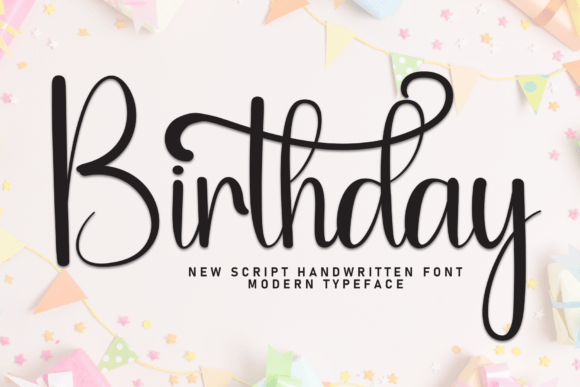
The Birth of a Delightful Font: A Designer’s Dream Come True
I’ll never forget the moment I stumbled upon the perfect font for a wedding invitation project. I was on a tight deadline, and my client was being super picky about the design. I had tried countless fonts, but none seemed to capture the warmth and playfulness she was looking for. That’s when I discovered Birthday Font – a delightful, approachable handwritten display font that exuded charm and friendliness. It was love at first sight! 💕
As a designer, I’m always on the lookout for fonts that can elevate my projects and make them more engaging. Here’s what I love about Birthday Font:
- ✨ Unique character: Each letter has its own personality, making it perfect for personalizing designs.
- ✅ Ease of use: The font is incredibly easy to read, even at smaller sizes.
- 💫 Playful vibe: It adds a touch of whimsy to any design, making it perfect for creative projects.
- 📚 Versatility: It works beautifully for both digital and print designs.
While Birthday Font is a stunning font, it’s not without its quirks. Here are a few things to keep in mind:
- 🤔 Limited use in formal designs: While it’s perfect for creative projects, it might not be the best fit for formal designs, such as business reports or academic papers.
- ⚠️ Kerning issues: As with any font, you might need to adjust the kerning to get the perfect spacing between letters.
- Experiment with the font’s OpenType features, such as glyphs and stylistic alternates, to add more personality to your design.
The Designer Inspiration Behind Birthday Font
The story behind Birthday Font is one of passion and creativity. The designer, inspired by the joy of celebrating special occasions, set out to create a font that would bring a smile to people’s faces. With Birthday Font, they aimed to craft a typeface that would be both beautiful and approachable – perfect for personalizing designs and making them more engaging.
| Is Birthday Font suitable for body text? | While it’s possible to use Birthday Font for body text, it’s recommended for display purposes due to its playful, decorative nature. |